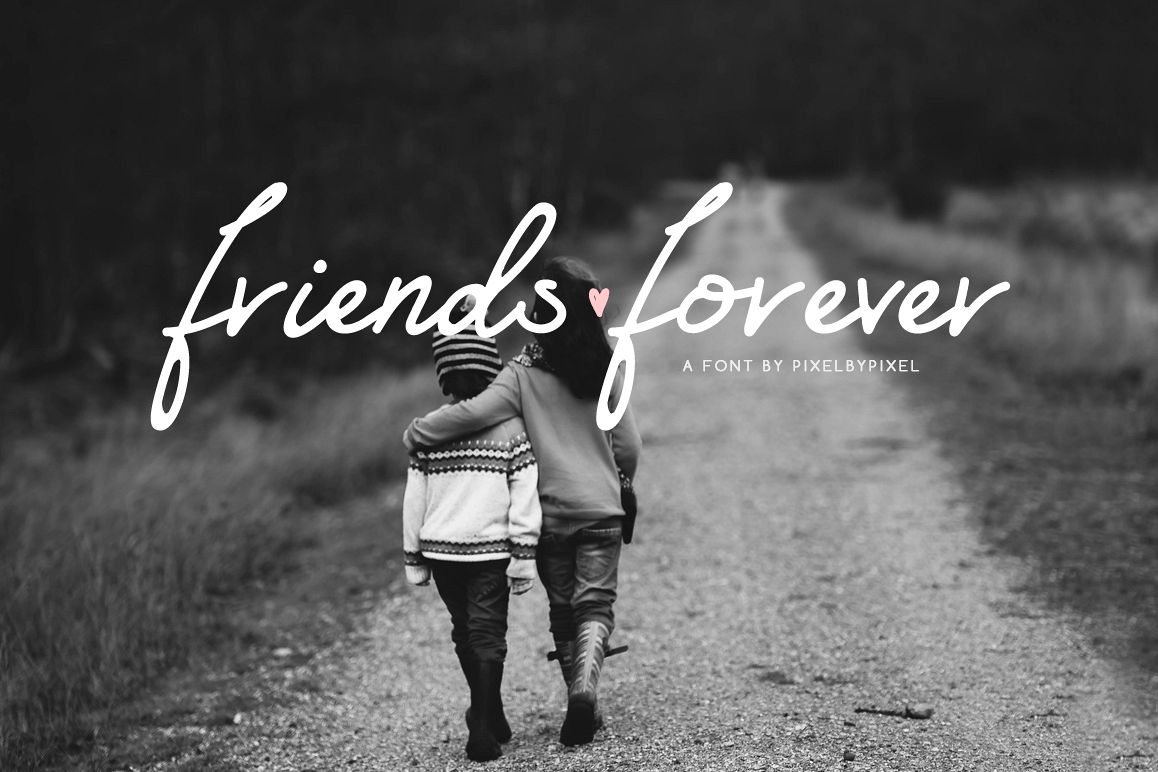
Friends Forever Font & Floral Extras
Friends Forever
Friends Forever Extras
An imperfect sweet script font with lots of extras!
MAKE BEAUTIFUL QUOTES AND LOGOS
Includes a bonus font of "Floral elements and swashes" that you can use to create logos, quotes, etc.
- Uppercase and lowercase characters.
- Numbers and punctuation.
- Floral elements & swashes